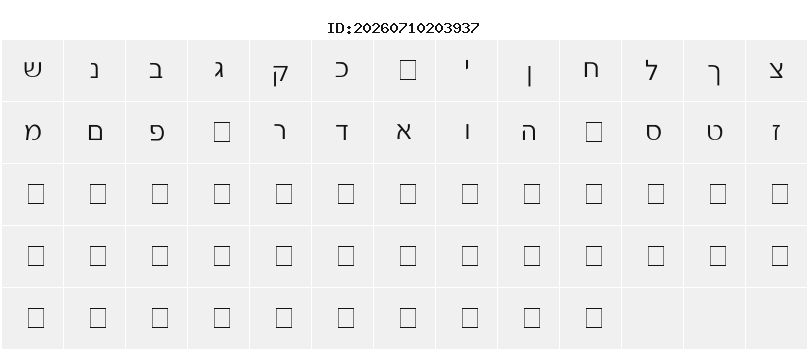
Gad Light Preview
• Font Name: Gad Light
• Full Font Name: Gad Light Normal
• Character Count: 60
About Gad Light.ttf
Gad Light.ttf is a modern, elegant sans-serif font designed for ultimate readability and visual harmony. Perfect for branding, headlines, web design, and print materials.